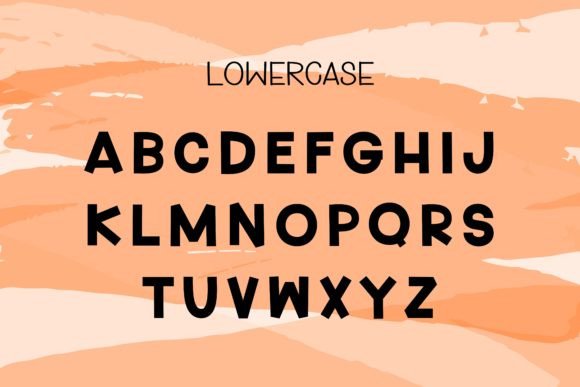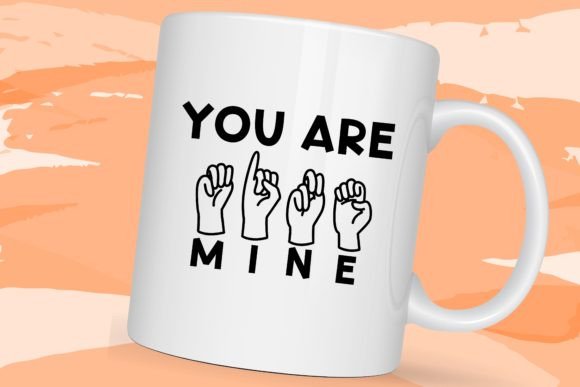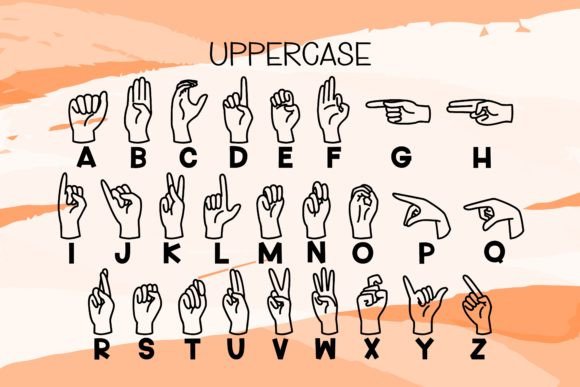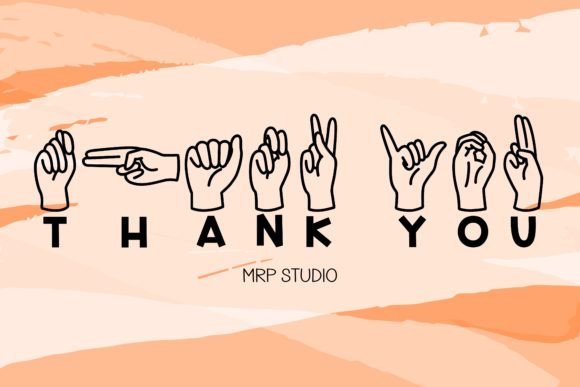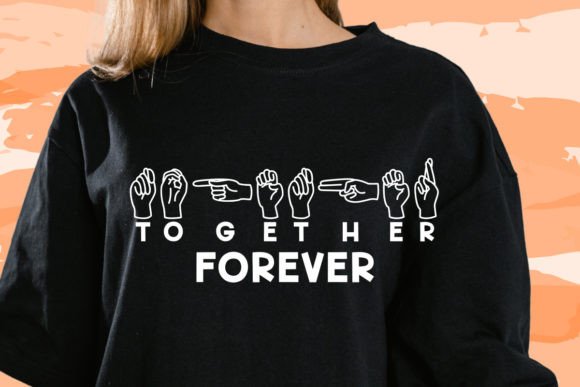
Introducing Hand Alphabet Font: A Fun and Unique Decorative Font for Your Creative Projects
Are you looking for a font that adds a touch of personality and playfulness to your designs? Look no further than the Hand Alphabet Font, a one-of-a-kind decorative font inspired by the American Sign Language (ASL). This delightful font is perfect for a wide range of creative projects, from party decorations to digital designs, and is sure to make your work stand out.
What is Hand Alphabet Font?
Hand Alphabet Font is a carefully crafted font that replicates the handshapes and finger placement used in ASL to represent the alphabet. The font is designed to be friendly, approachable, and easy to read, making it perfect for use in a variety of contexts. Whether you’re a designer, crafter, or simply someone who loves to get creative, this font is sure to inspire your next project.
Unique Features of Hand Alphabet Font
So what sets Hand Alphabet Font apart from other fonts? Here are just a few of its unique features:
- ASL Inspiration: The font is directly inspired by the American Sign Language, making it a great choice for anyone looking to add a touch of authenticity to their designs.
- Decorative Style: The font features a playful, decorative style that’s perfect for adding a touch of whimsy to your designs.
- Ease of Use: The font is easy to read and use, making it perfect for a wide range of creative projects.
- Fun and Friendly: The font has a fun and friendly vibe that’s sure to bring a smile to the face of anyone who sees it.
Uses for Hand Alphabet Font
So what can you use Hand Alphabet Font for? The possibilities are endless! Here are just a few ideas to get you started:
- Party Decorations: Use the font to create fun and colorful party decorations, such as banners, signs, and invitations.
- Digital Designs: Add a touch of personality to your digital designs, such as social media graphics, blog posts, and email newsletters.
- Crafting Projects: Use the font to add a personal touch to your crafting projects, such as scrapbooking, card making, and DIY gifts.
- Educational Materials: The font is also a great choice for educational materials, such as worksheets, posters, and presentations.
Why Choose Hand Alphabet Font?
So why choose Hand Alphabet Font for your next project? Here are just a few reasons:
- Unique and Eye-Catching: The font is sure to grab attention and add a touch of personality to your designs.
- Easily Readable: The font is easy to read, even at small sizes, making it perfect for use in a variety of contexts.
- Versatile: The font can be used in a wide range of creative projects, from party decorations to digital designs.
- Fun and Engaging: The font has a fun and engaging vibe that’s sure to bring a smile to the face of anyone who sees it.
In conclusion, Hand Alphabet Font is a unique and versatile decorative font that’s perfect for adding a touch of personality and playfulness to your creative projects. With its ASL inspiration, decorative style, and ease of use, this font is sure to be a hit with designers, crafters, and anyone who loves to get creative. So why not give it a try and see how it can add a fun and friendly touch to your next project?